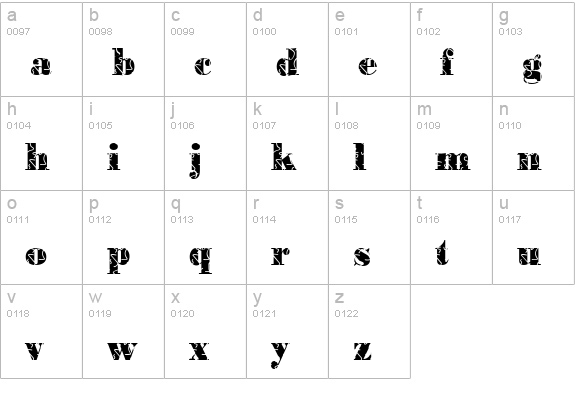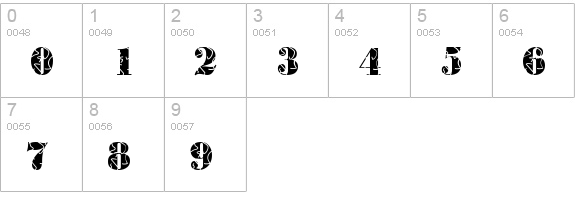
BodoniStrings-Regular is the standard, neutral variant in the BodoniStrings typeface family \xE2\x80\x94 well suited to general body text, paragraphs, and standard typographic work.
BodoniStrings-Regular is a classic and elegant font that exudes sophistication and style. With its clean lines and graceful curves, this timeless typeface is perfect for adding a touch of refinement to any design project. Whether you're creating invitations, logos, or marketing materials, BodoniStrings-Regular will make your text stand out with its timeless beauty. Best of all, BodoniStrings-Regular is available for free download at FontsMarket.com. This means you can easily access this exquisite font and use it in your projects without any cost. So why settle for ordinary fonts when you can elevate your designs with the elegance of BodoniStrings-Regular? Download it today and add a touch of class to your creations.